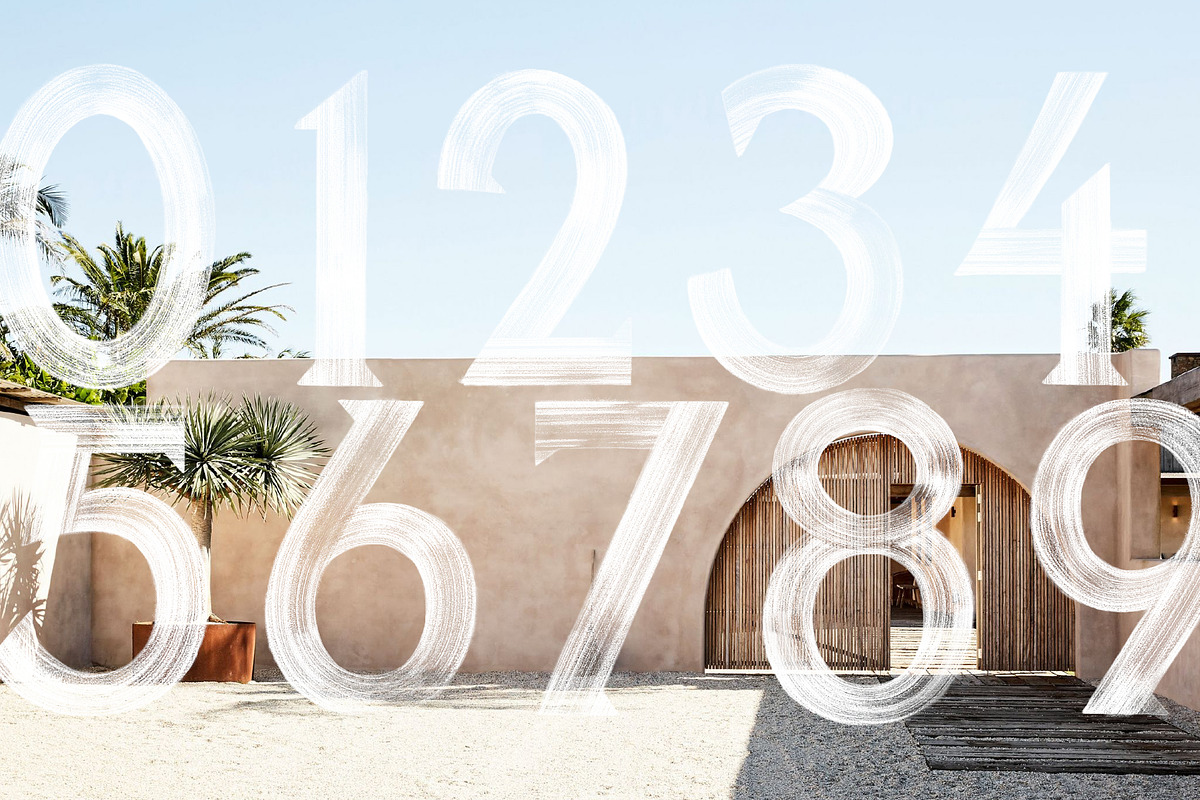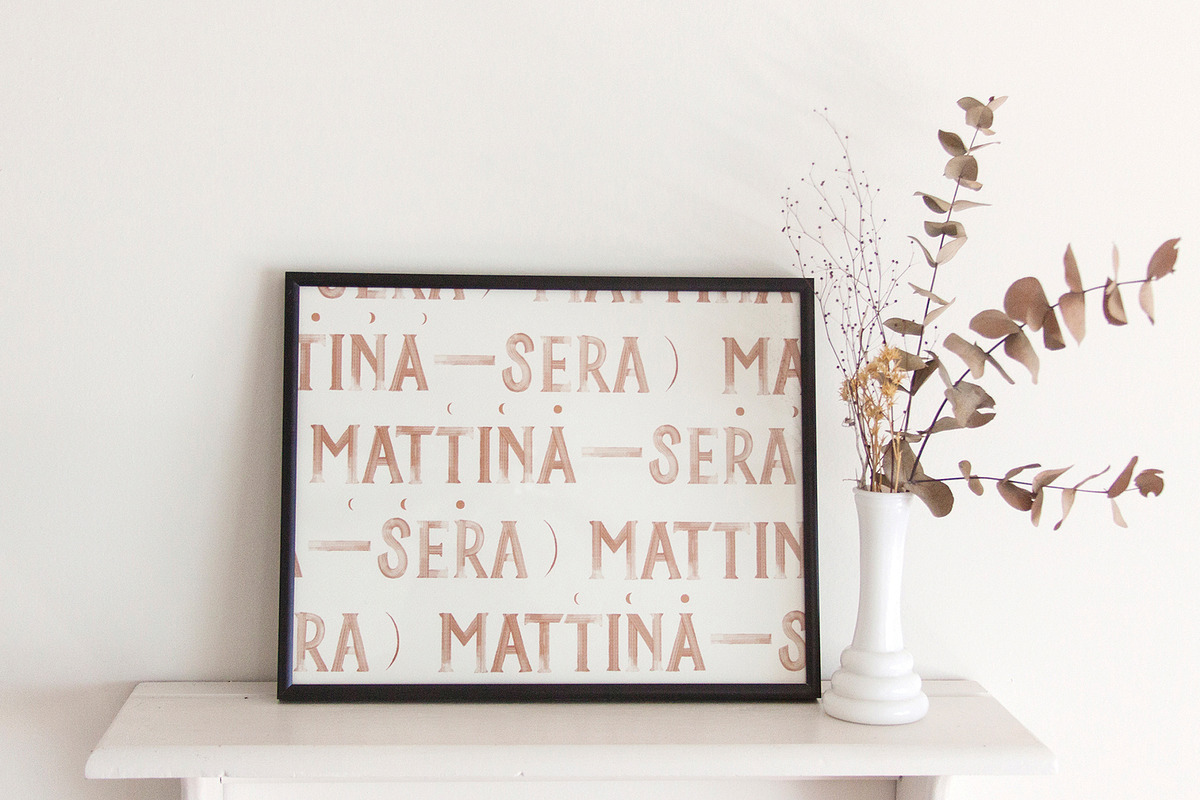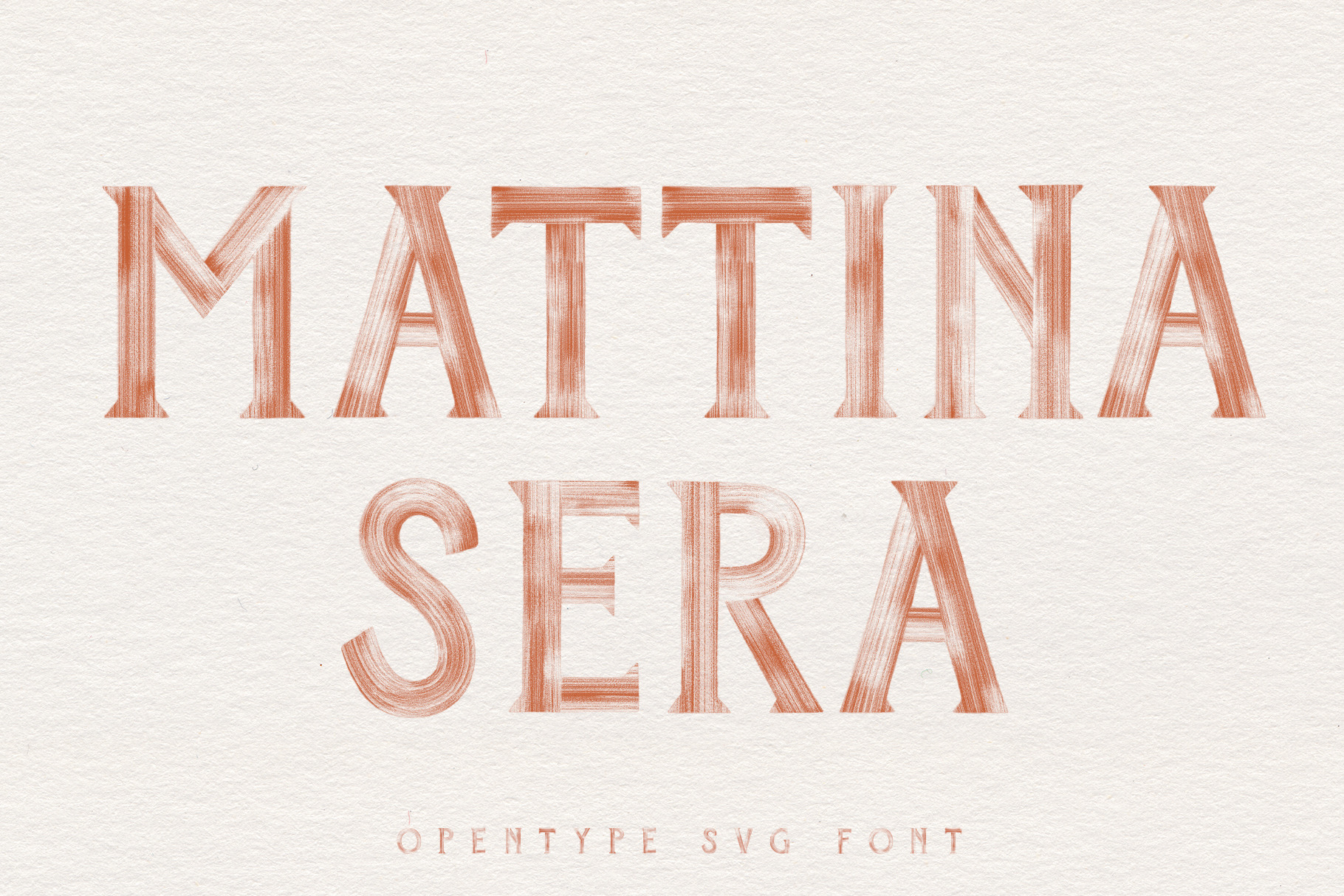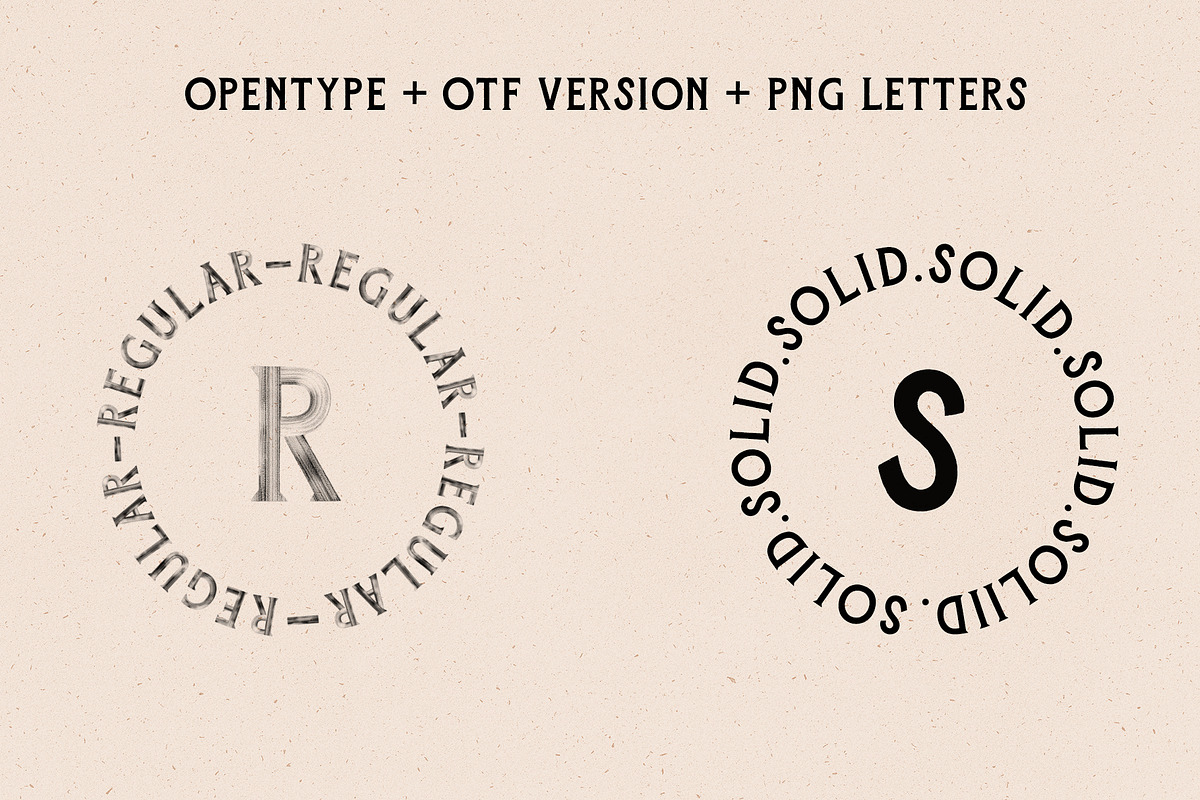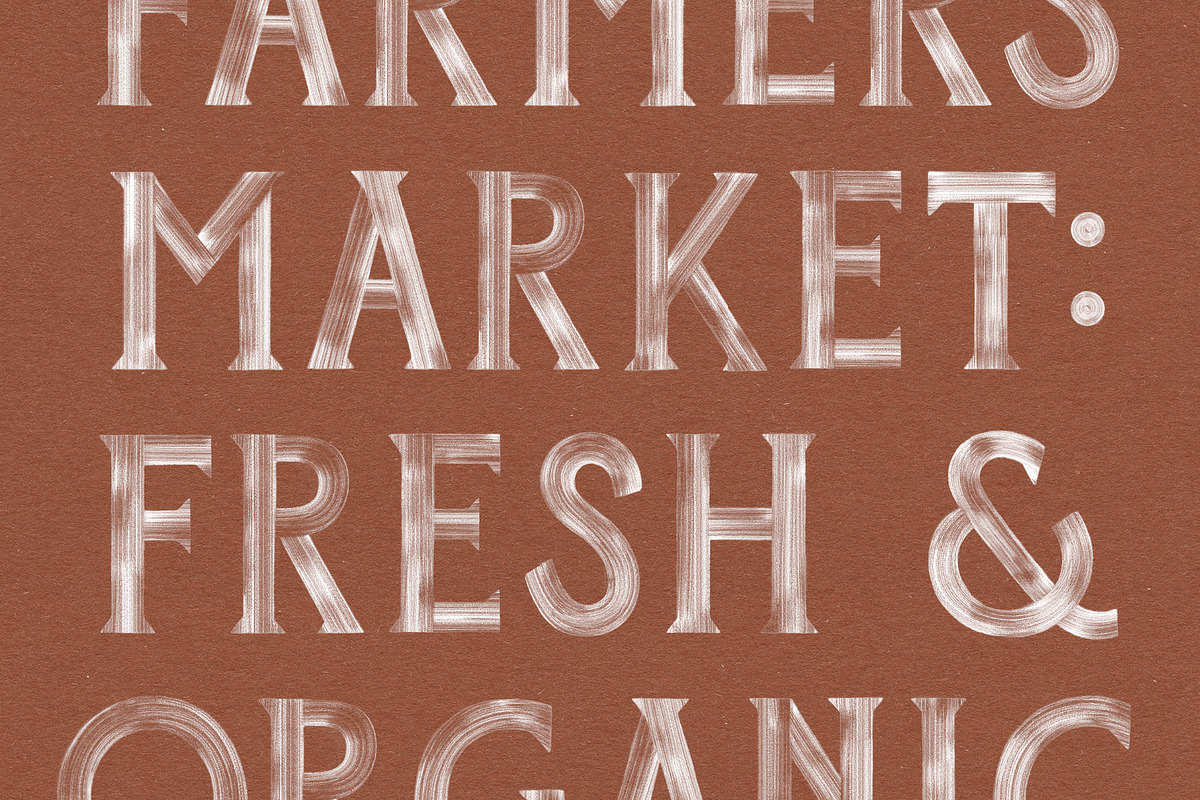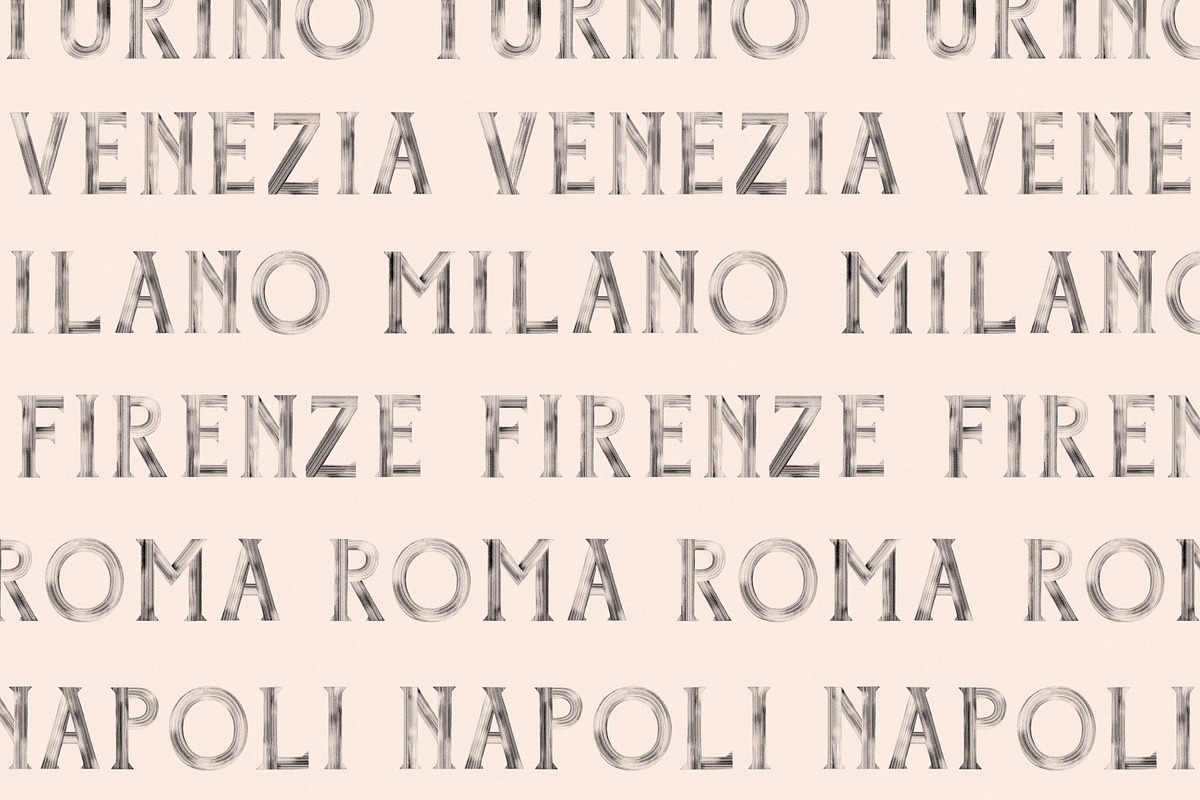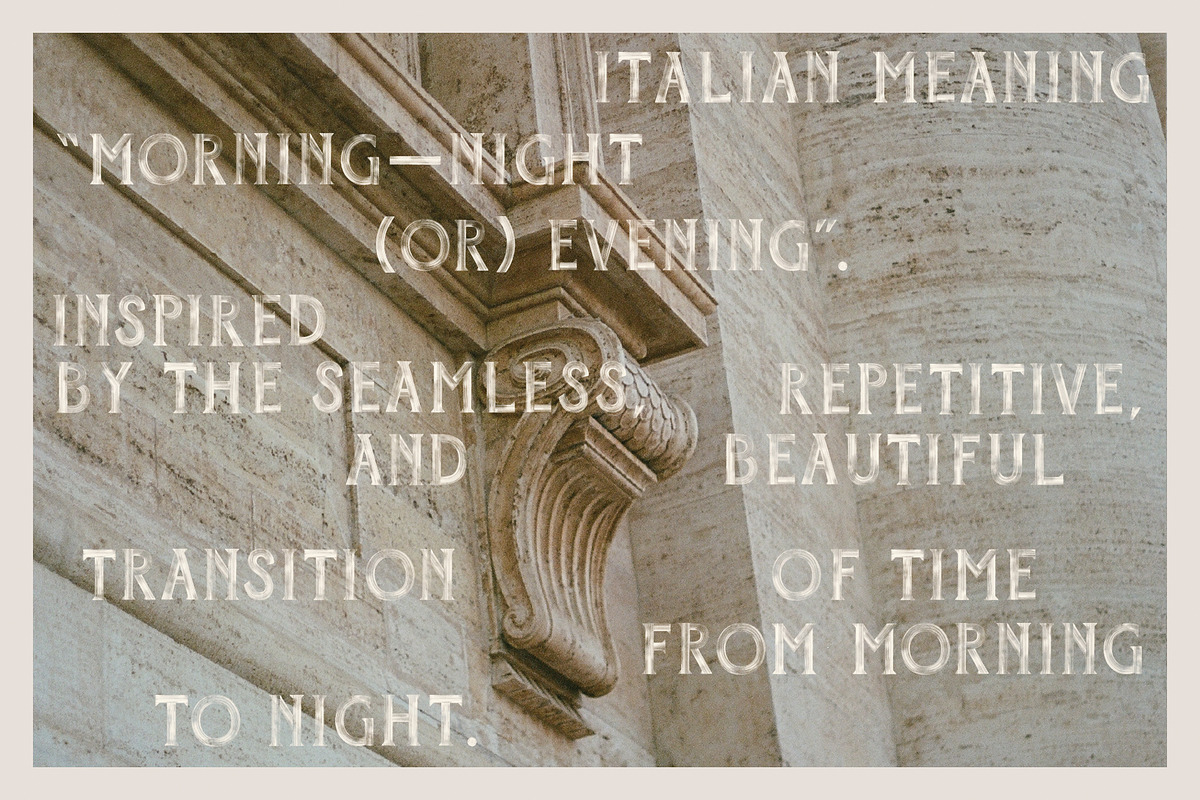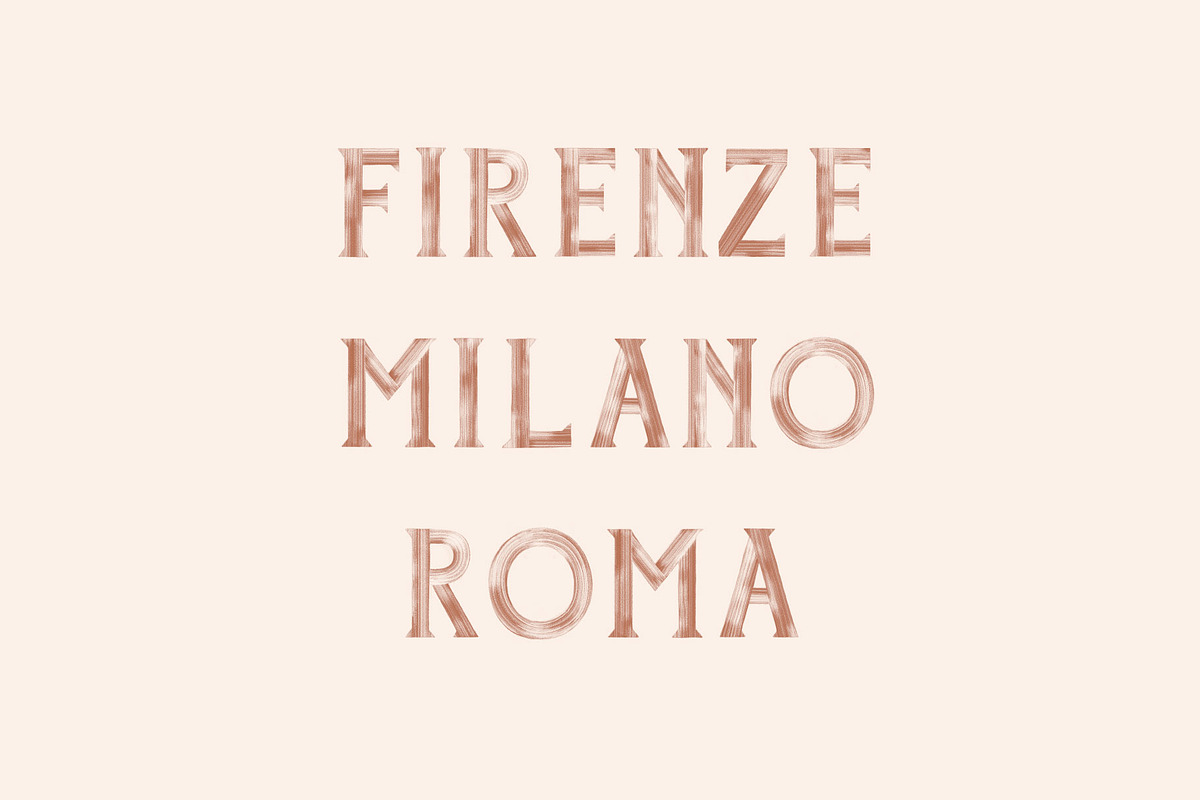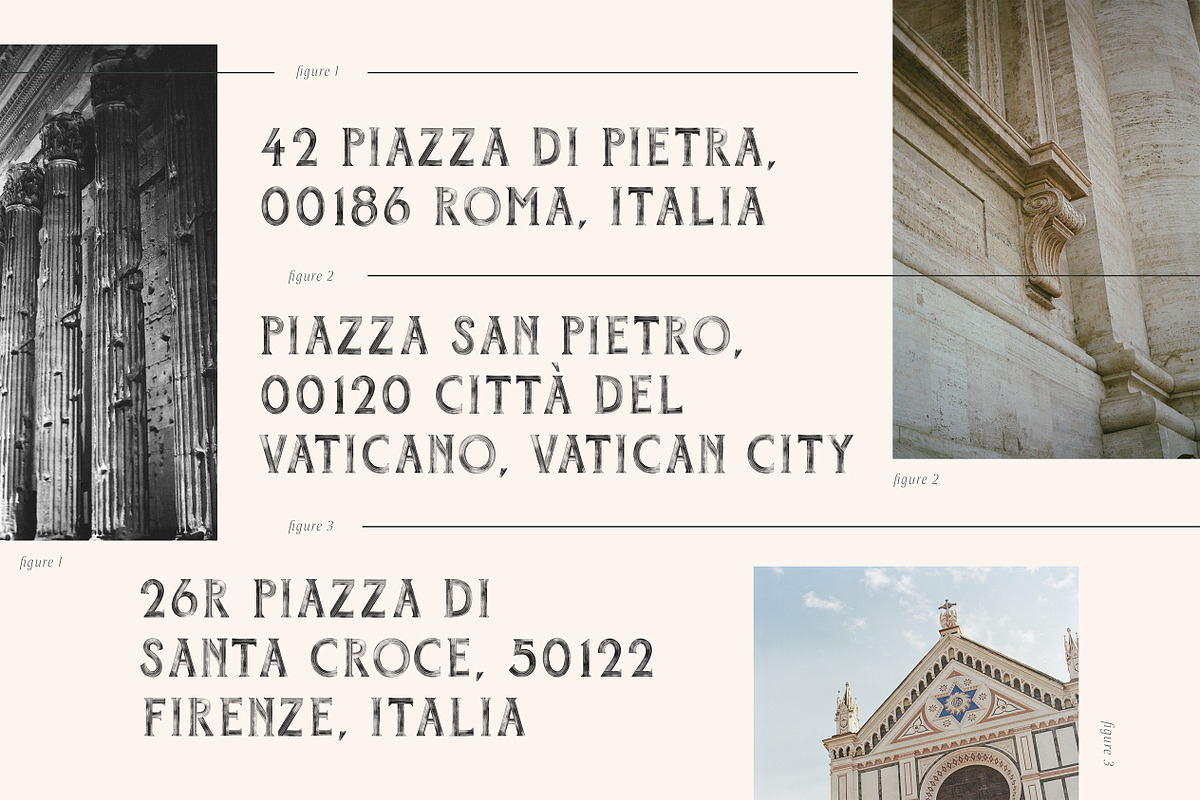
Mattina-Sera SVG font
New Tropical Design Studio had teamed up with the talented LA lettering artist Laura Bennet to create Mattina-Sera. A beautiful hand made opentype SVG font with loads of texture and detail.
Opentype SVG is an entirely new font format that functions similarly to standard fonts. The big difference is that this new format allows font designers to incorporate as much detail as we like into our creations by using high-resolution bitmap images for the letters as opposed to traditional vector. This means the beautiful hand painted letters of Mattina-Sera can contain lots of real texture.